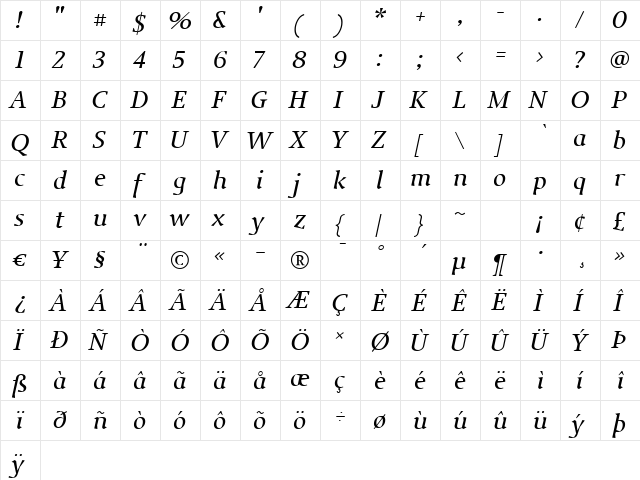
JudeMediumLiningNumbersItalic Regular
Design Context for JudeMediumLiningNumbersItalic Typeface
JudeMediumLiningNumbersItalic takes a measured approach to typography — its balanced proportions and neutral character make it a reliable workhorse for both digital and print work. Its italic angle brings a sense of urgency and motion to the letterforms.
Pro Tip: Use JudeMediumLiningNumbersItalic for emphasis, pull quotes, and subheadings where its slanted energy can add rhythm to the layout.